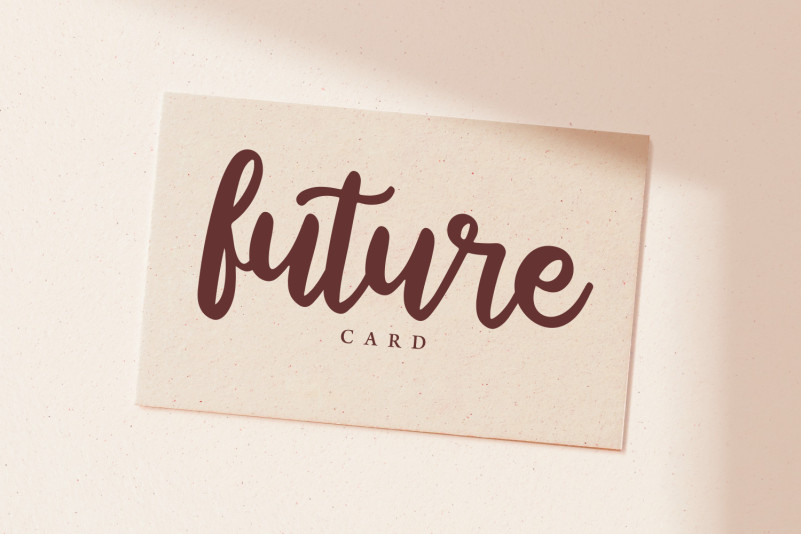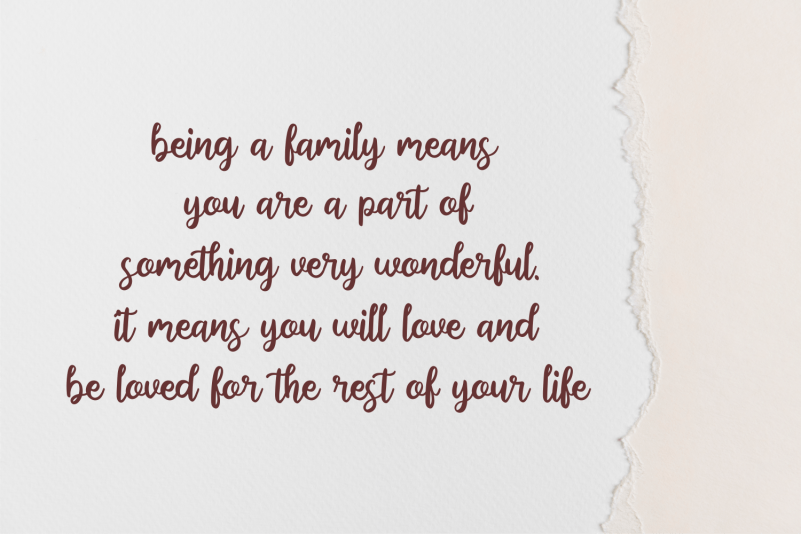
Blasticia Script Font is a delicate and elegant handwritten font. Its distinct and well balanced letters make this font a masterpiece. Fall in love with its incredibly versatile style and use it to create spectacular designs!